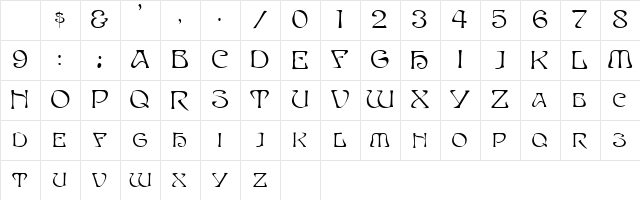
Lepton Normal Free Font
Lepton Normal
Lepton Family
Design Context for Lepton
Lepton is a composed and adaptable typeface that performs quietly and consistently across a wide range of design contexts.